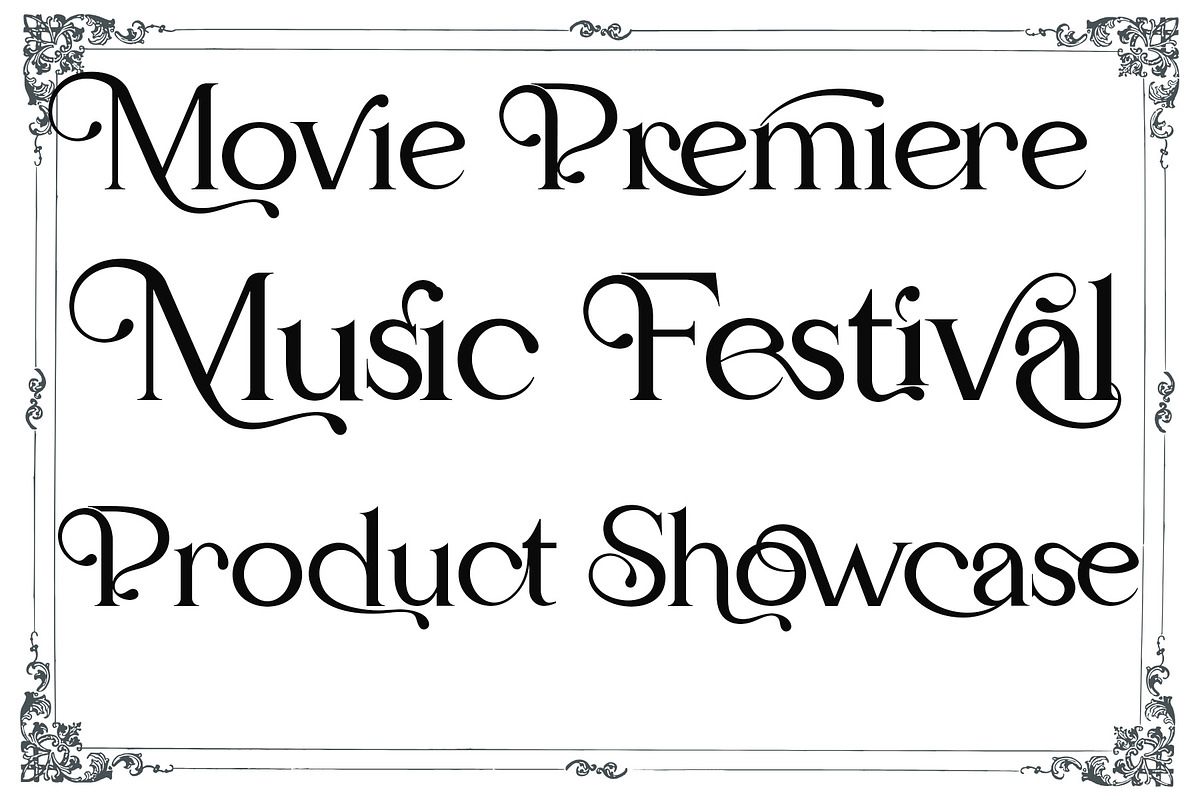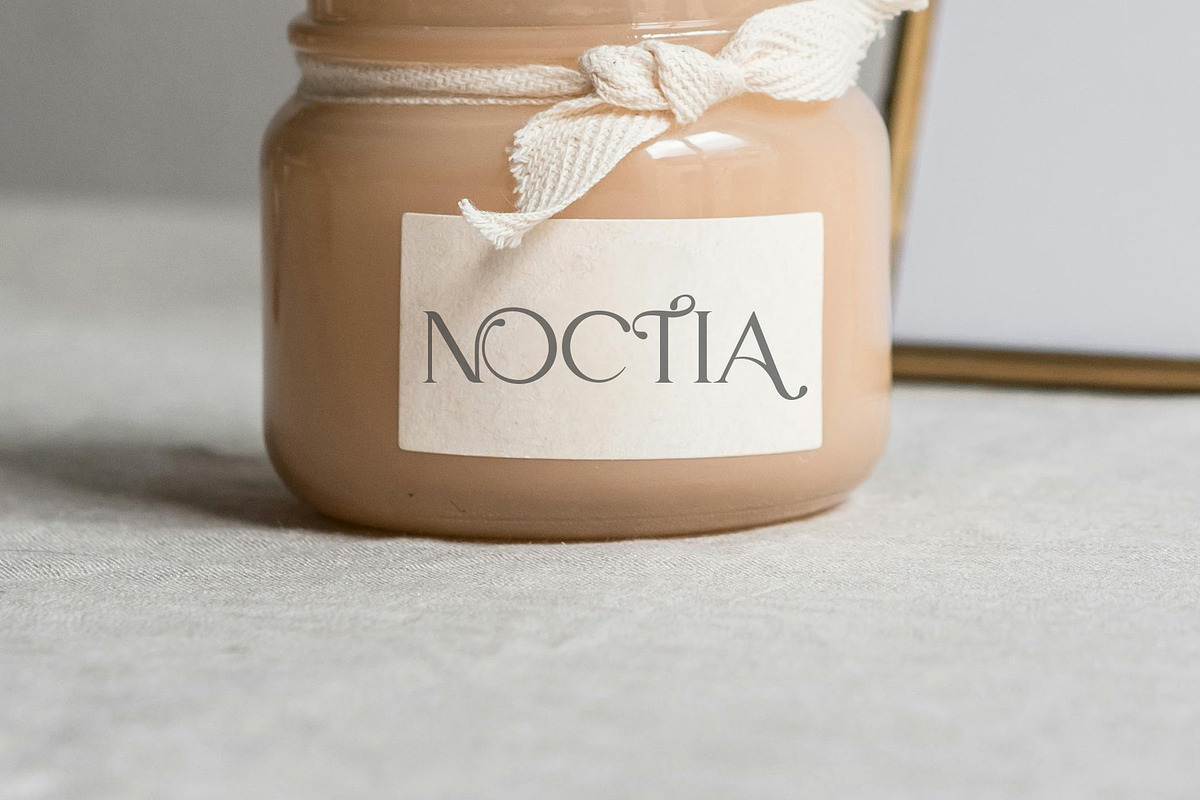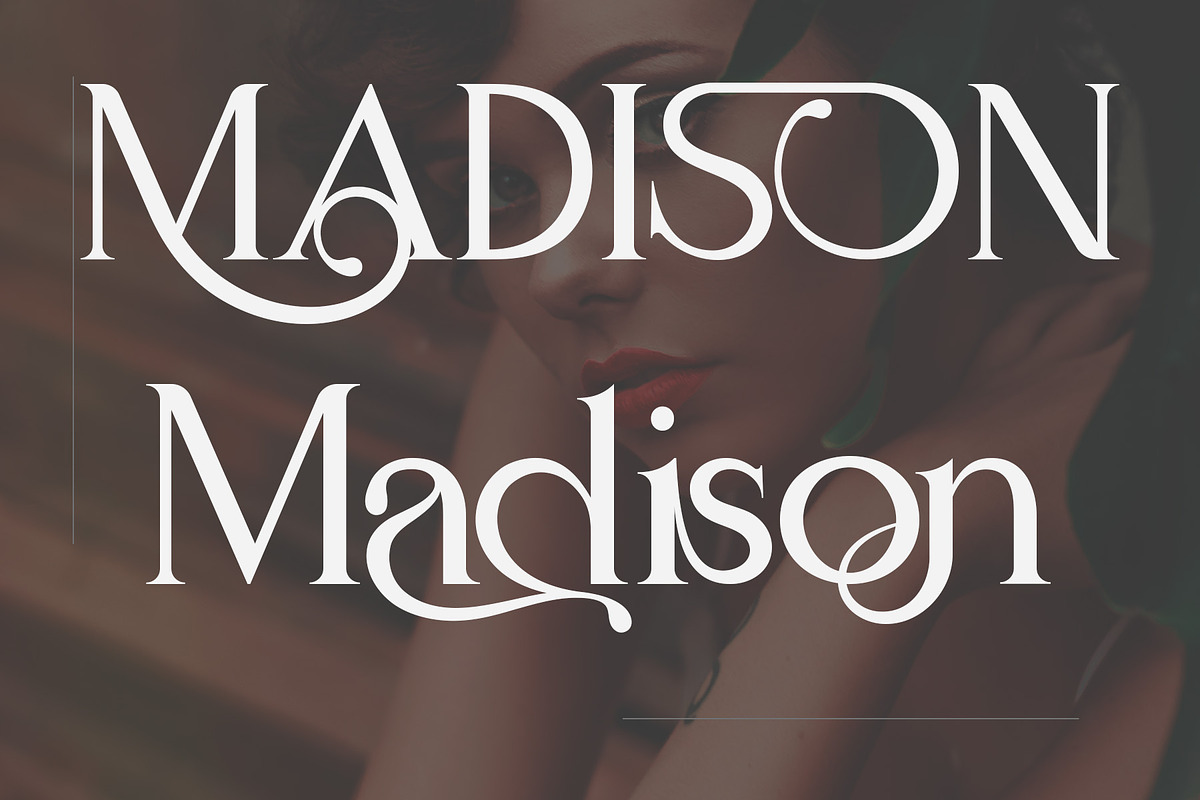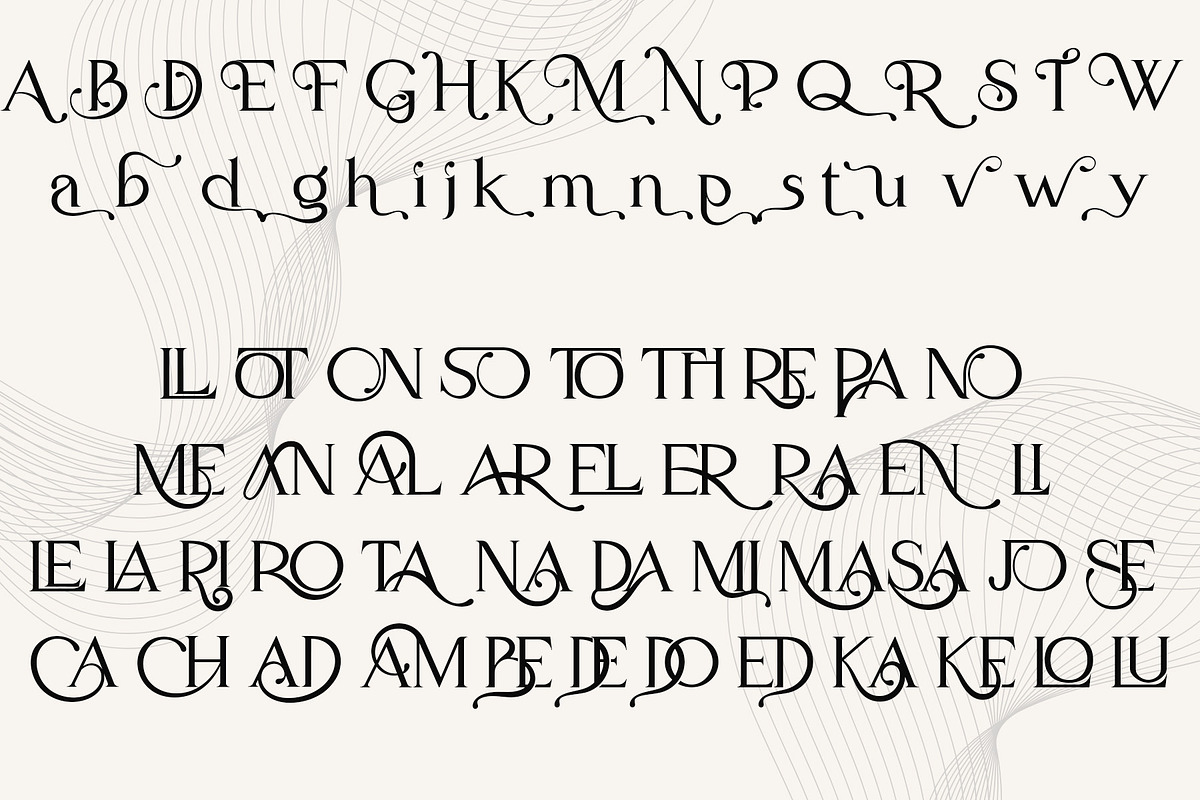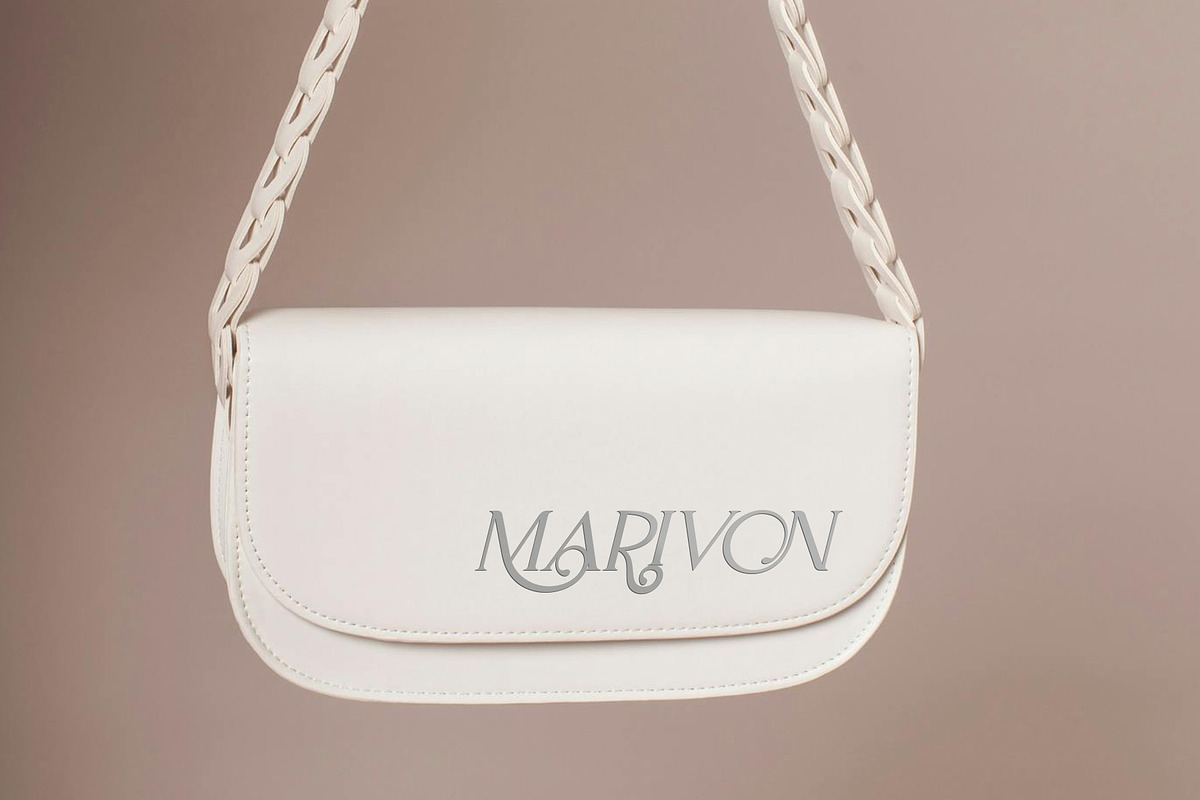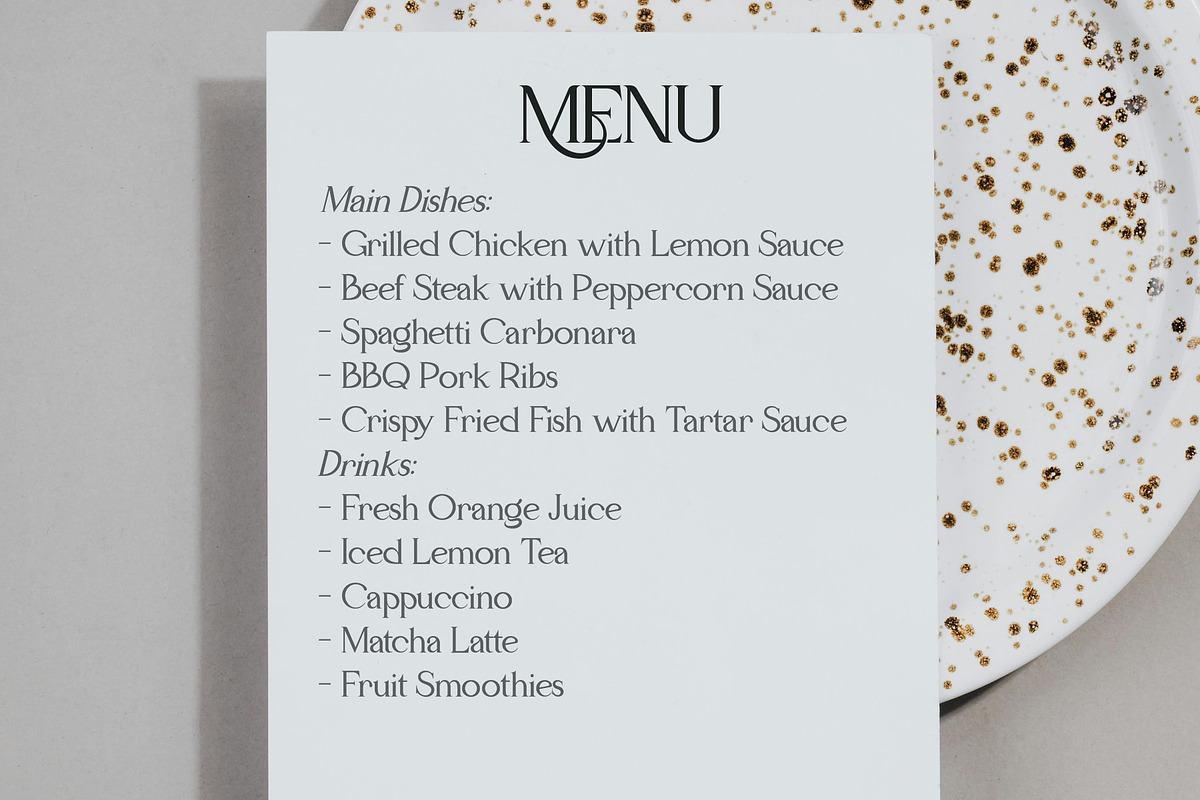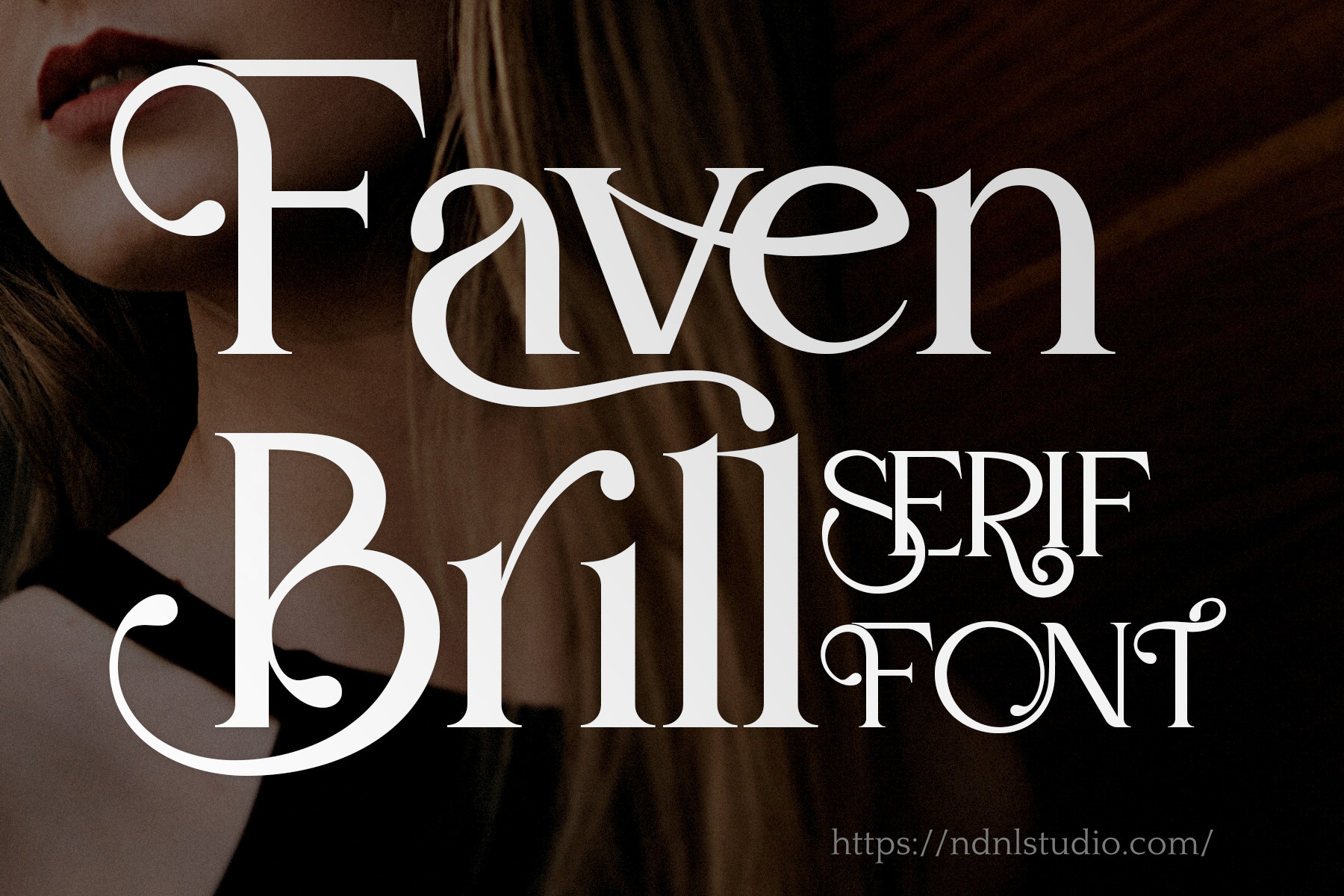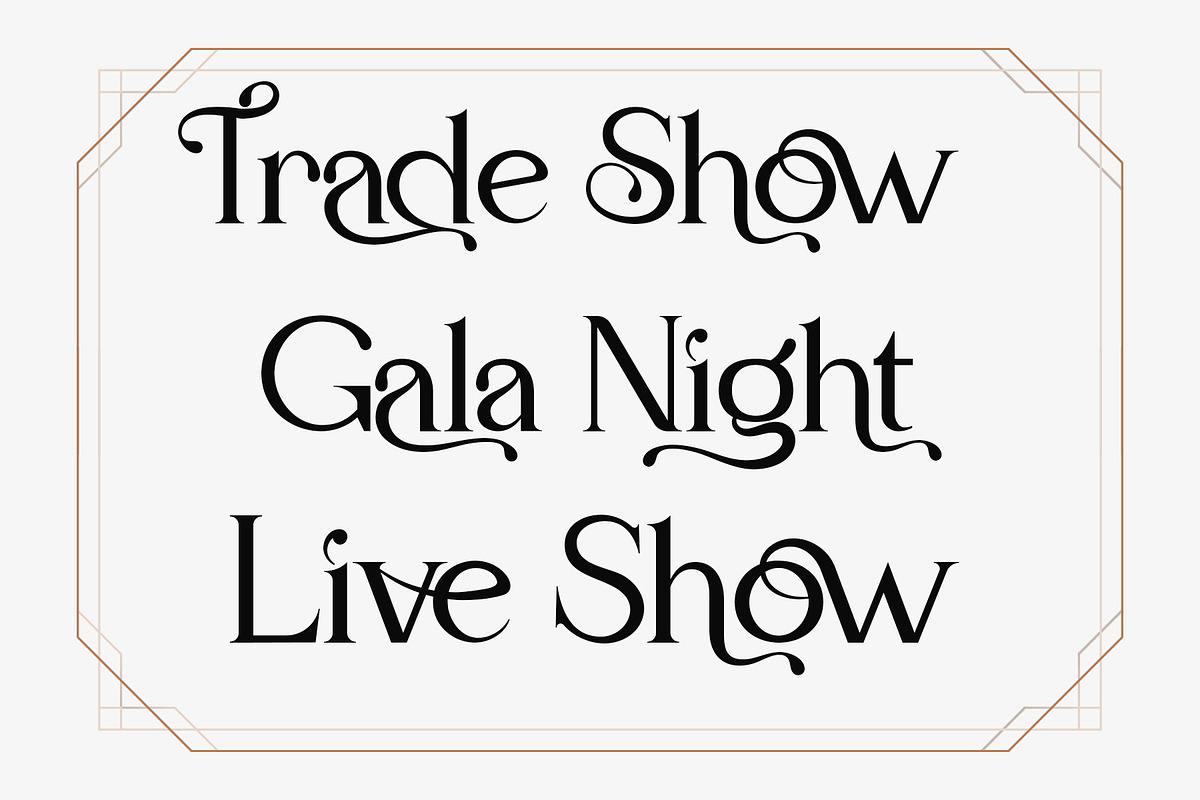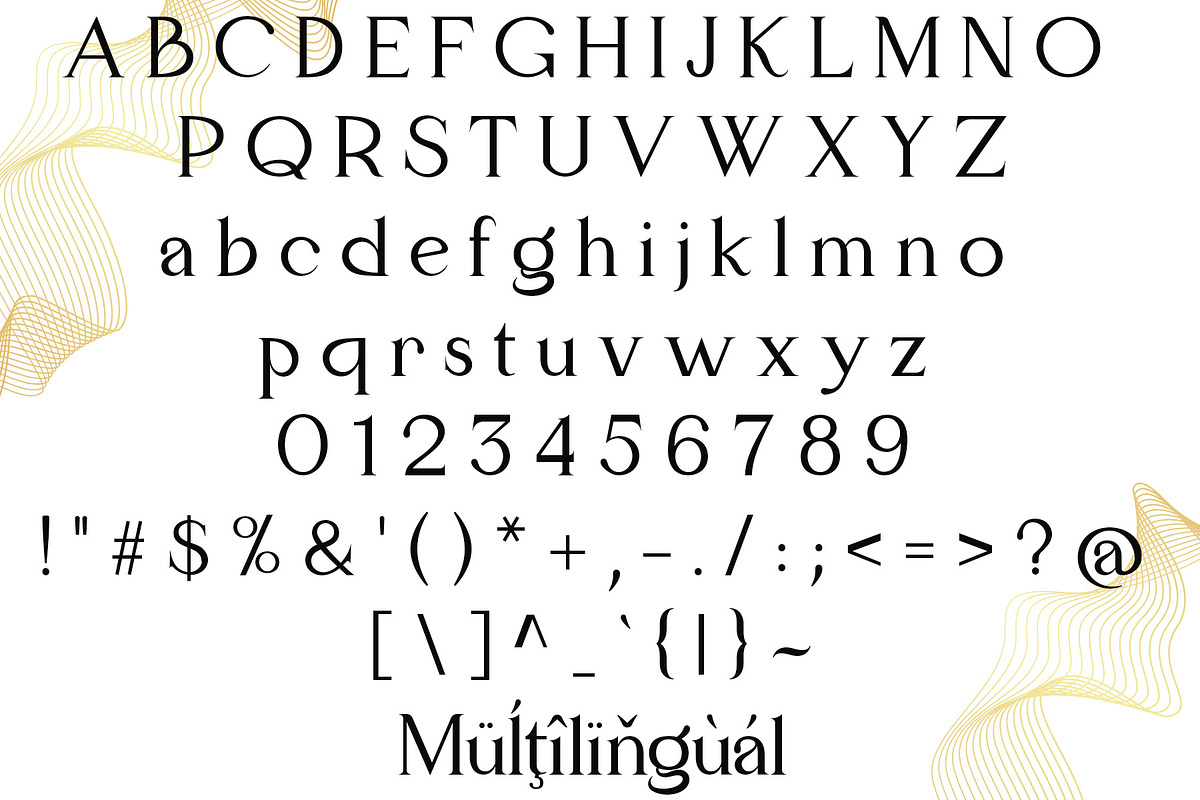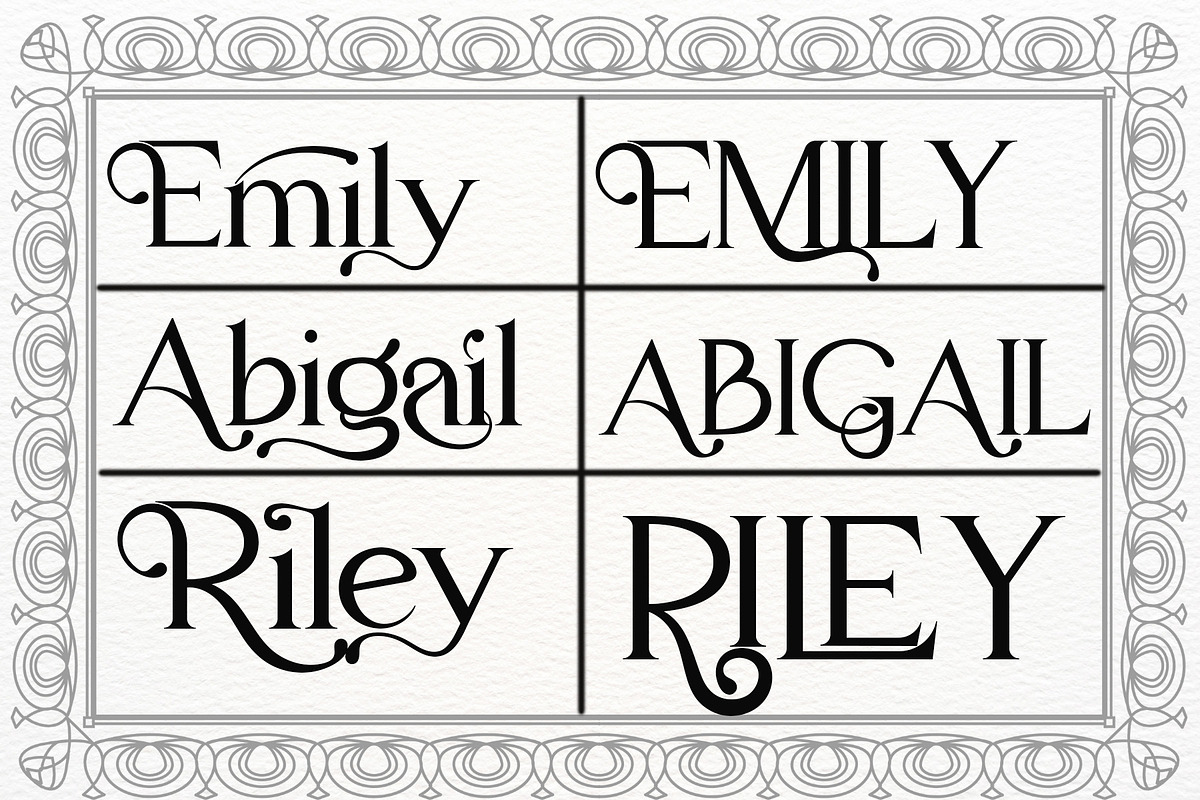
Faven Brill – Serif Font
Introducing Faven Brill!
Faven Brill is a refined serif font that captures both grace and confidence. With its elegant letterforms and subtle artistic touches, it delivers a sense of luxury and sophistication. Perfect for fashion projects, beauty branding, editorial layouts, or wedding designs — Faven Brill adds a distinctive charm that elevates every word into a visual statement.
If the software you are using does not fully support OpenType features (such as Stylistic Alternates), you can still access the decorative characters of the font using the following method:
Examples:
- Axx → Decorative A (if available)
- aX → Decorative a (if available)
And also:
- AxX → Decorative A2 (if available)
- aXX → Decorative a2 (if available)
- aXXX → Decorative a3 (if available)
To separate ligatures: Insert the shortcut xXx between two characters.
- ab → axXxb → a b